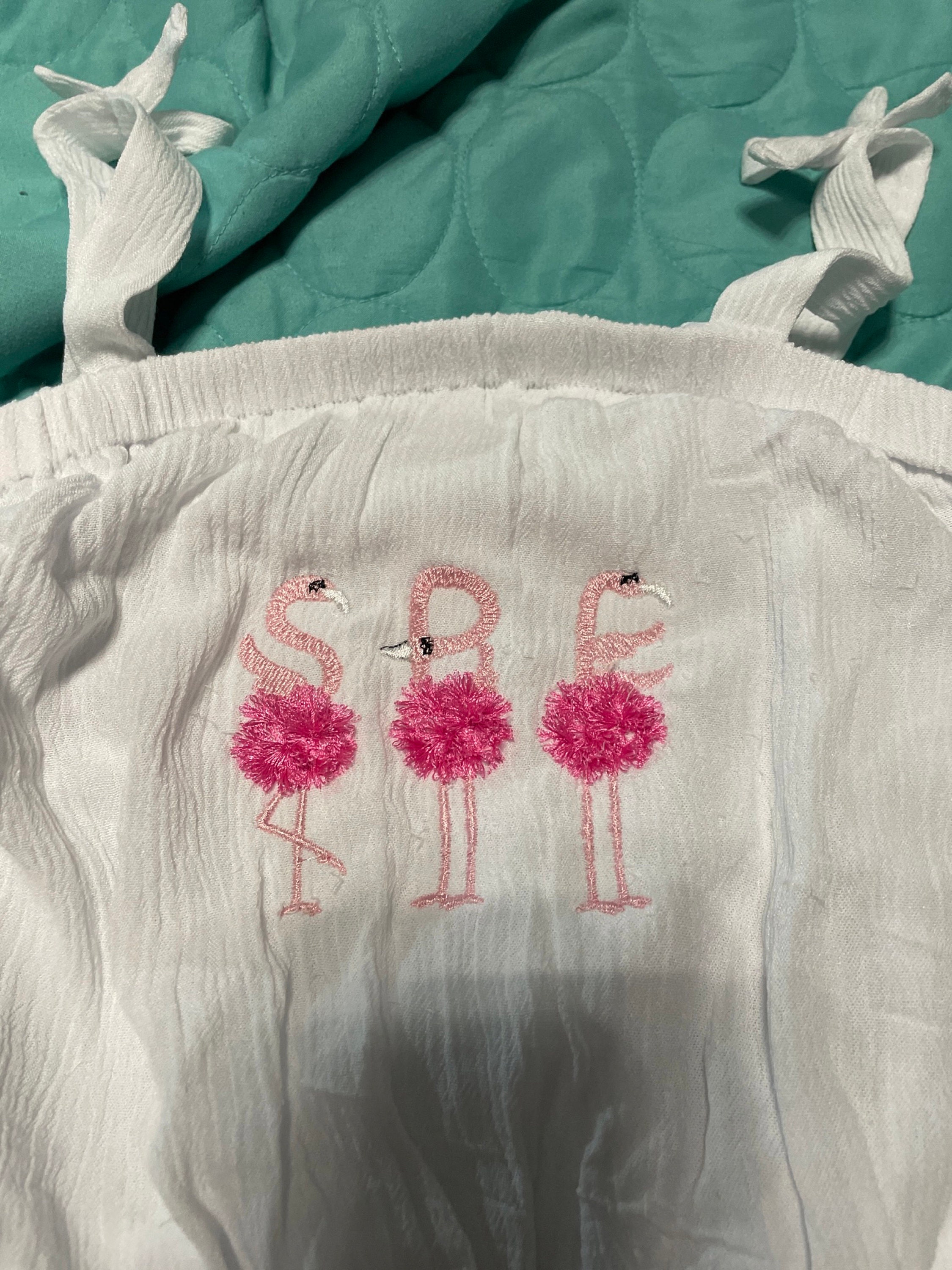
Font Entire alphabet Fringed fluffy chenille flamingos machine embroidery designs flamingo for hoops 4x4 5x7 fringe fur flamingos ABC
The design has a special seam holding fringe in place.
It is easy. Embroider the design as usual. Large satin stitches will be loose. Once you complete stitching the design, turn over your hoop to see a reverse side, and cut the bobbin thread, along the large satin stitches. Turn the hoop back over and fluff up the "fringe" around.